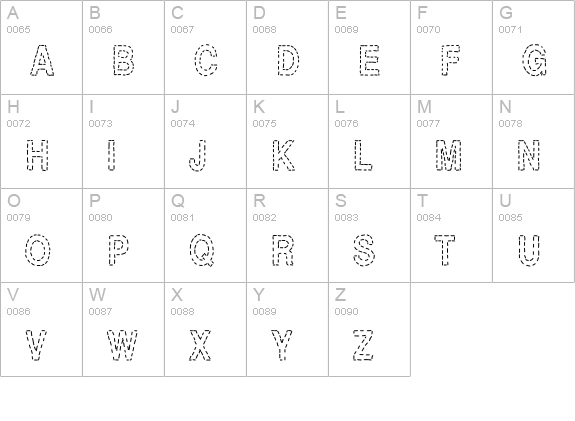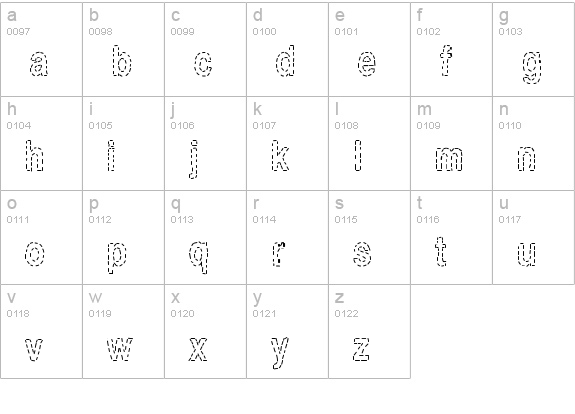
Stitch & Bitch Font Details
Introducing Stitch & Bitch font, a unique and quirky typeface perfect for adding a playful touch to your design projects. This font captures the essence of handmade stitching and craftiness, making it ideal for craft-related designs, DIY projects, and more. With its charming and whimsical appearance, Stitch & Bitch font is sure to stand out and make a statement. Best of all, Stitch & Bitch font is available for free download at FontsMarket.com. Whether you're a creative professional looking to add a fun twist to your work or a hobbyist seeking a font with personality, Stitch & Bitch font is a fantastic choice. Download this delightful font today and let your creativity soar!